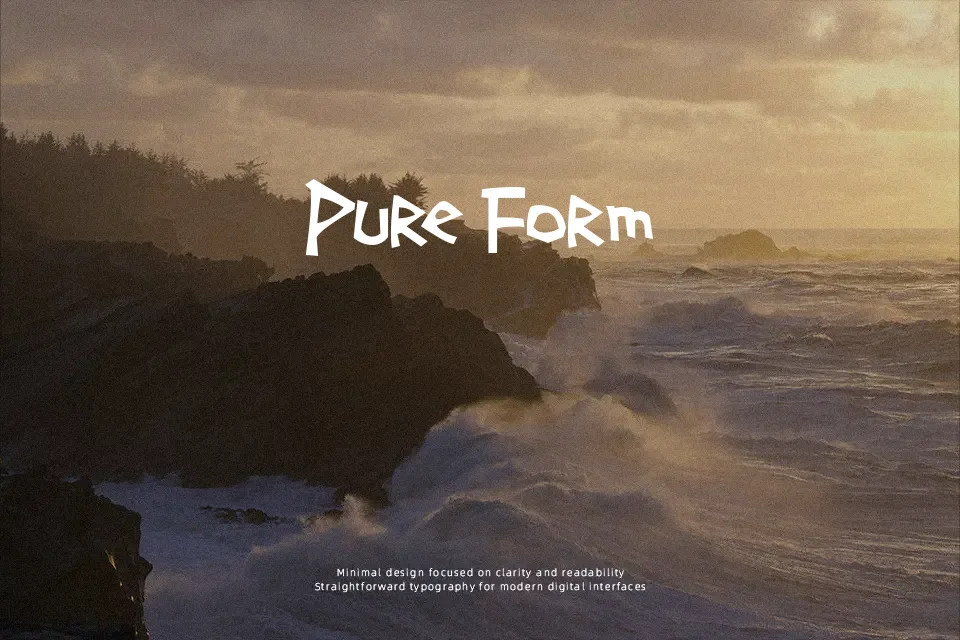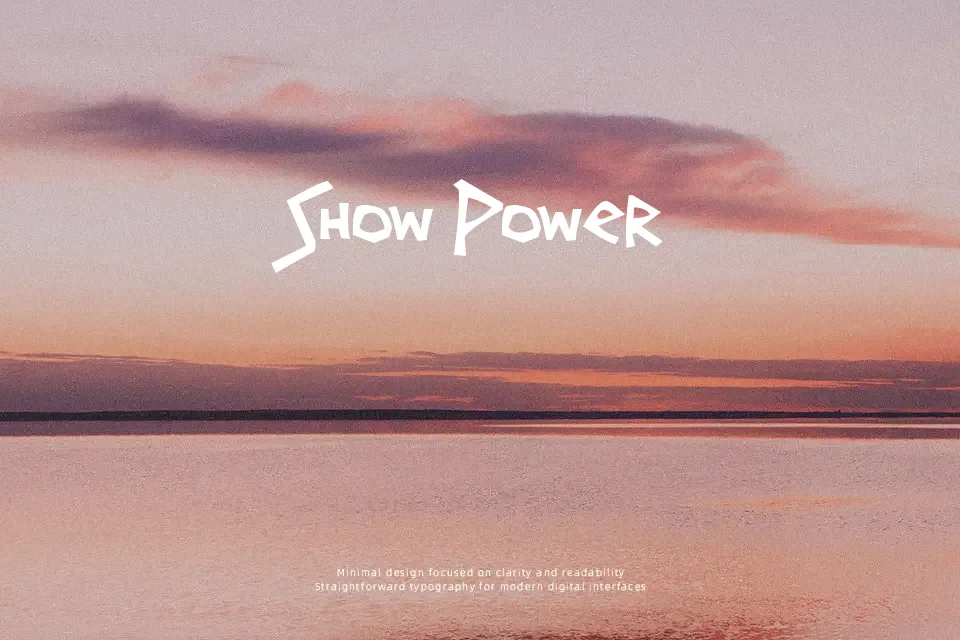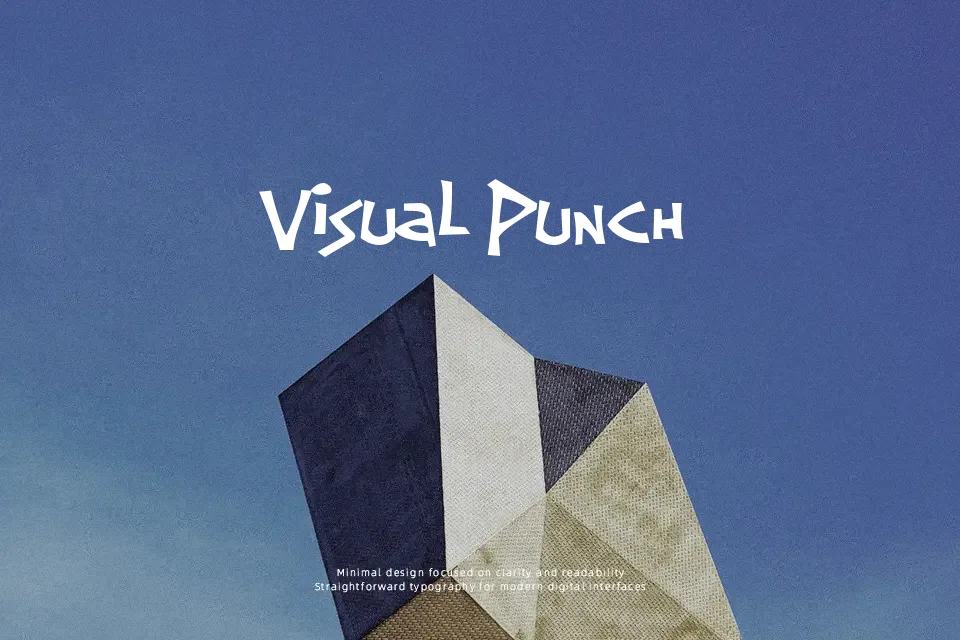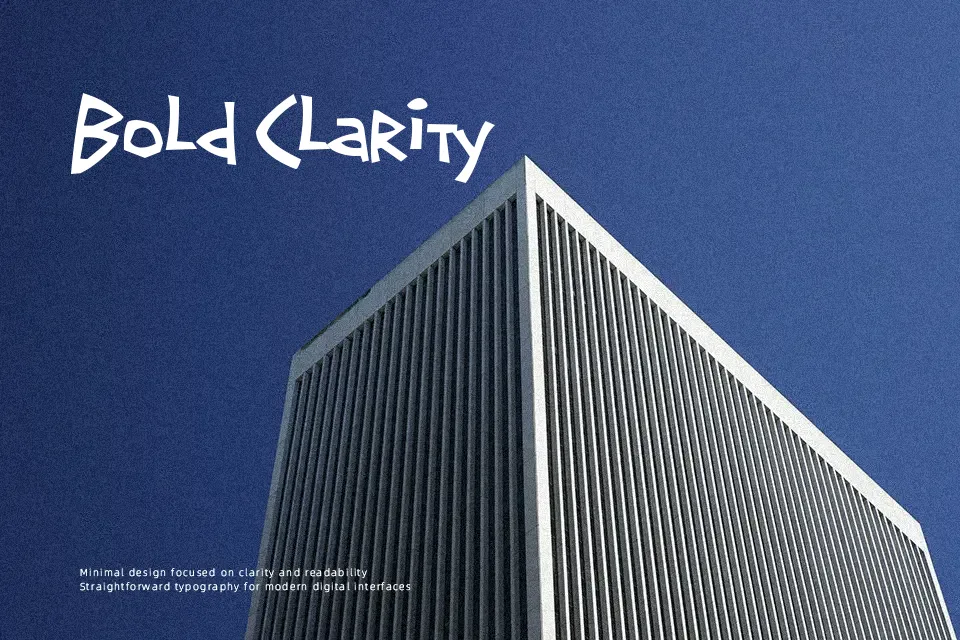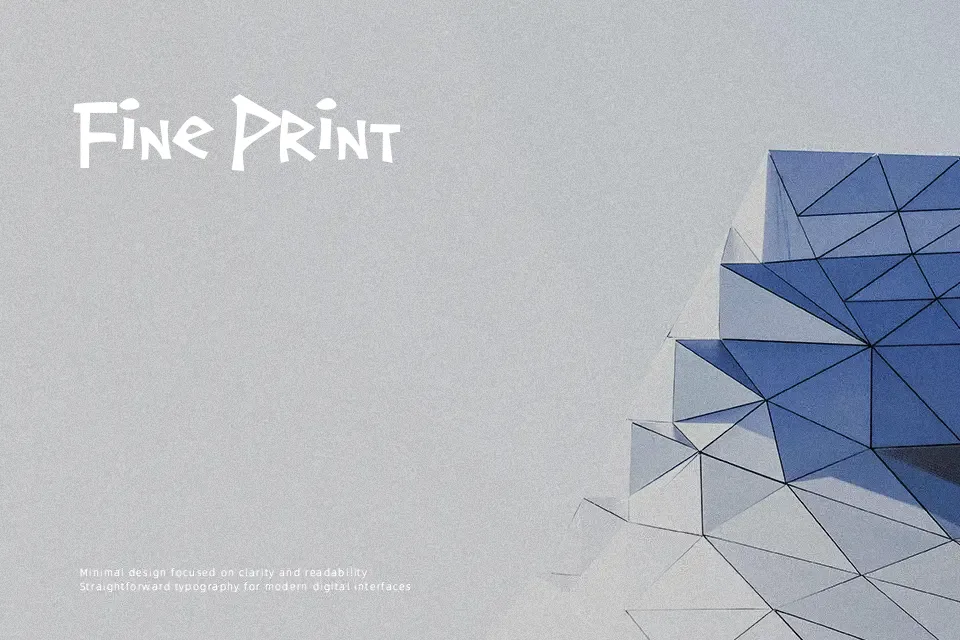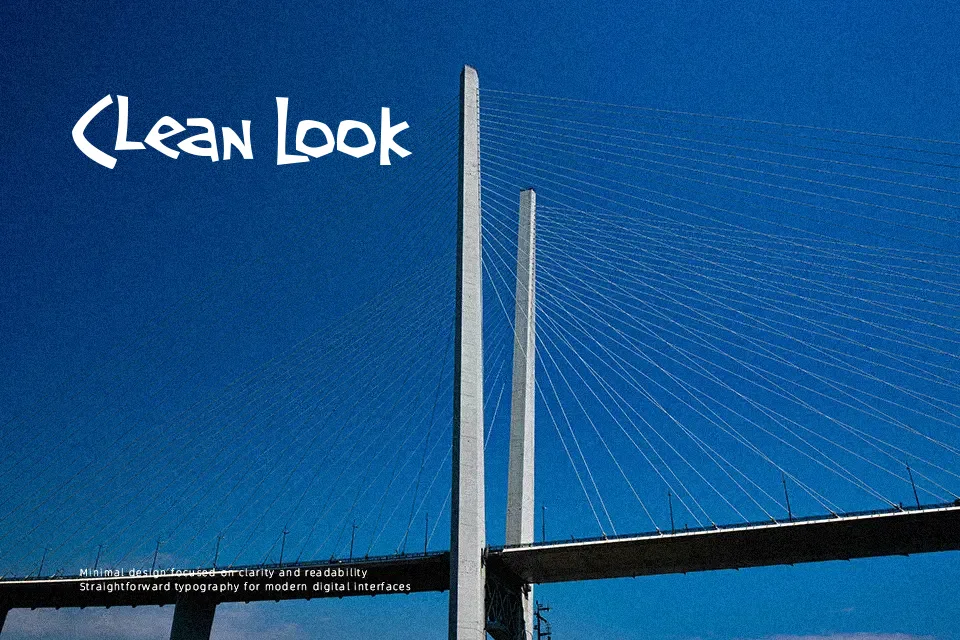
Screwball Font
Screwball Font presents a lively hand-cut aesthetic marked by off-kilter baselines, exaggerated character widths, and asymmetric stroke thicknesses. Each glyph demonstrates deliberate irregularity, where varying stem weights and eccentric terminal shapes create an engaging visual bounce across text strings. Spacing remains relatively tight to preserve word cohesion, allowing short titles, apparel prints, and package graphics to command immediate attention. Readability thrives at prominent display scales where each quirky curve remains distinct, though dense forms reduce comfort during extended reading. As a result, the typeface is less suitable for continuous paragraphs or compact user interfaces where uniform rhythm is essential.
Best For: animated title cards, comic book headers, playful product packaging, apparel graphics
Not Ideal For: continuous paragraph text, corporate financial reports, dense editorial body copy, small mobile ui labels
Perfect for branding, headline, and kids, with a creative and cartoon style.